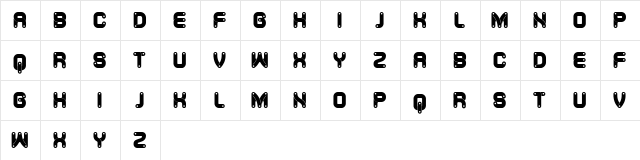
Canal Flat Bright Regular
Design Context for Canal Flat Bright Typeface
Canal Flat Bright takes a measured approach to typography — its balanced proportions and neutral character make it a reliable workhorse for both digital and print work.